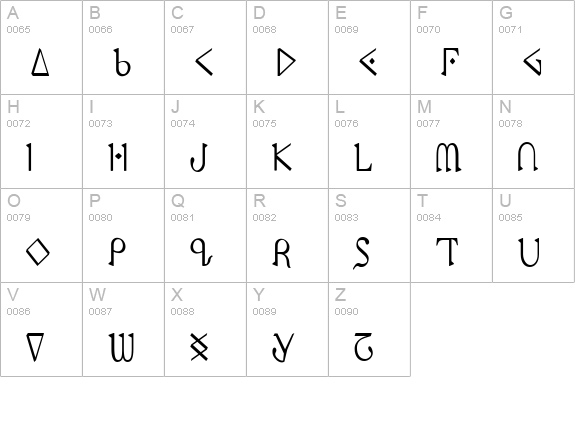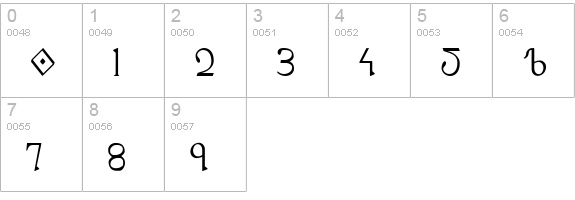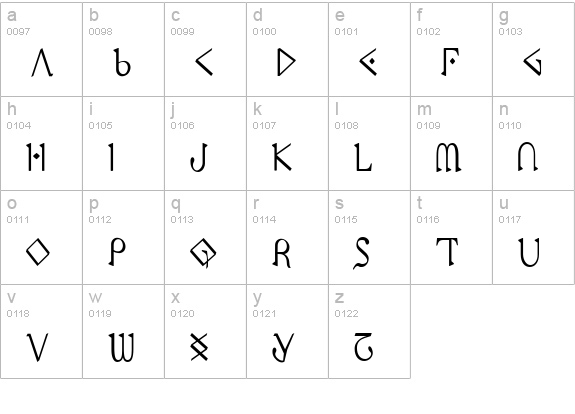
Presley Press Condensed is a distinctive, condensed-width variant in the Presley typeface family \xE2\x80\x94 well suited to design and typography projects.
Presley Press Condensed font is a sleek and modern typeface that exudes elegance and sophistication. With its condensed letterforms and clean lines, this font is perfect for creating eye-catching headlines, titles, and branding materials. The tall and narrow design of the letters gives a stylish and contemporary look to any project. What sets Presley Press Condensed font apart is that it is not only visually striking but also free to download. Yes, you read that right – this amazing font is freely available for download at FontsMarket.com. Whether you're a designer looking to add a touch of class to your designs or a business owner wanting to enhance your branding, Presley Press Condensed font is the perfect choice. Download it now and elevate your projects with this elegant typeface.